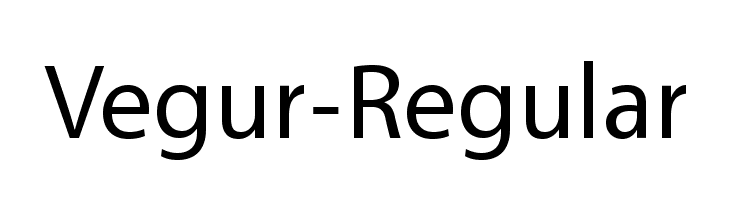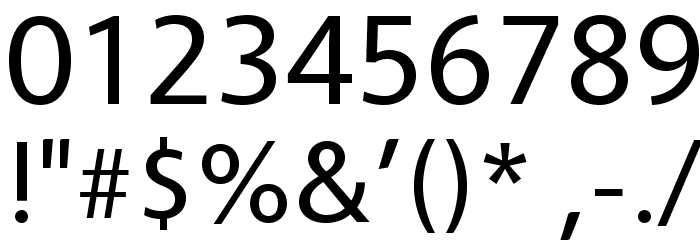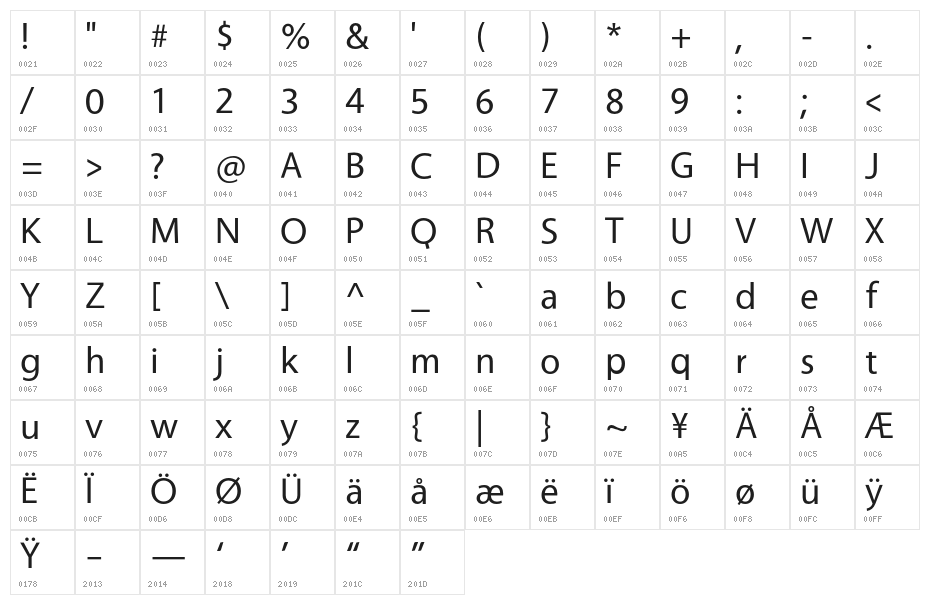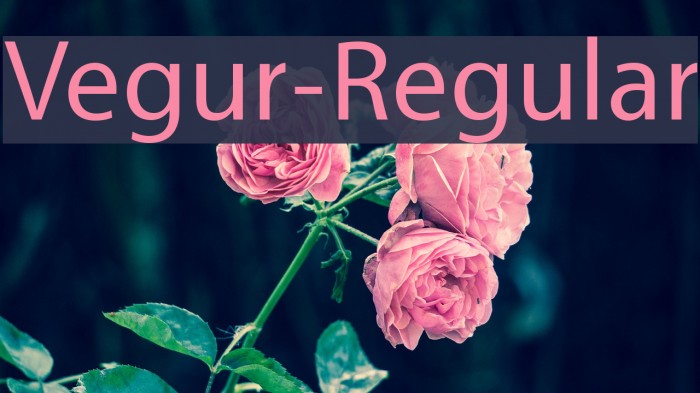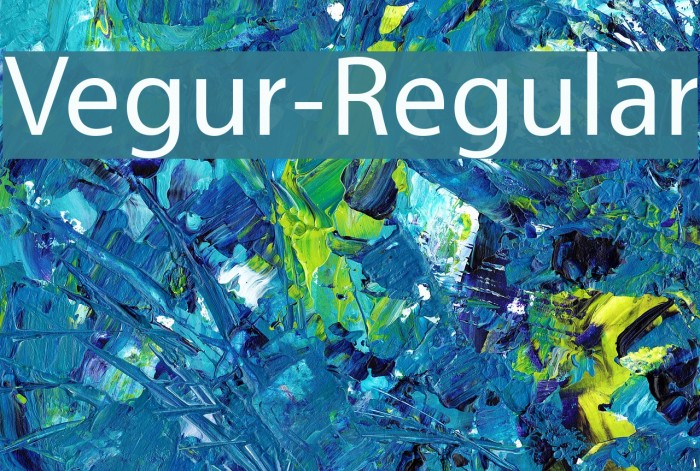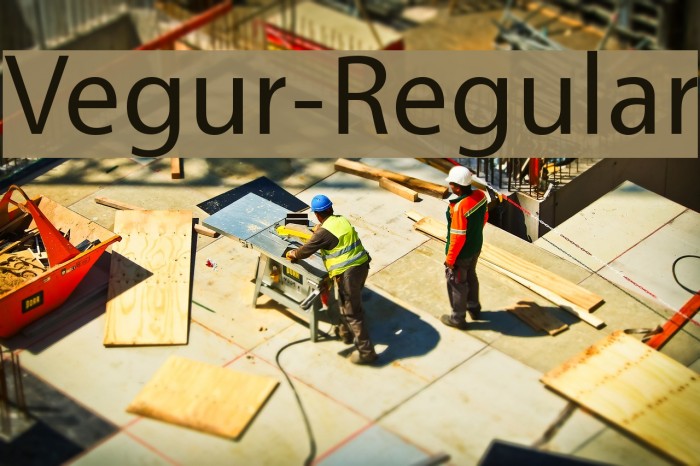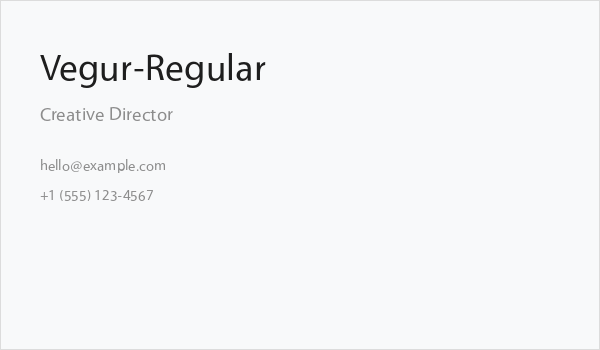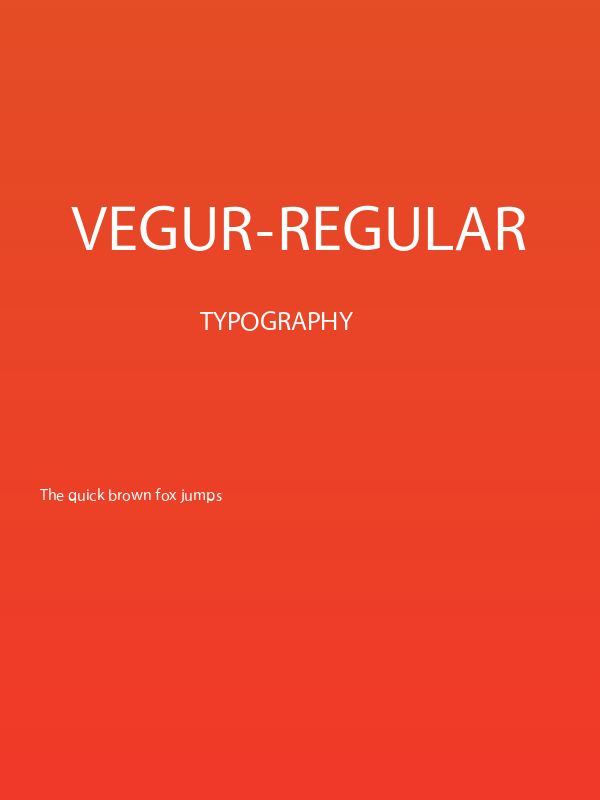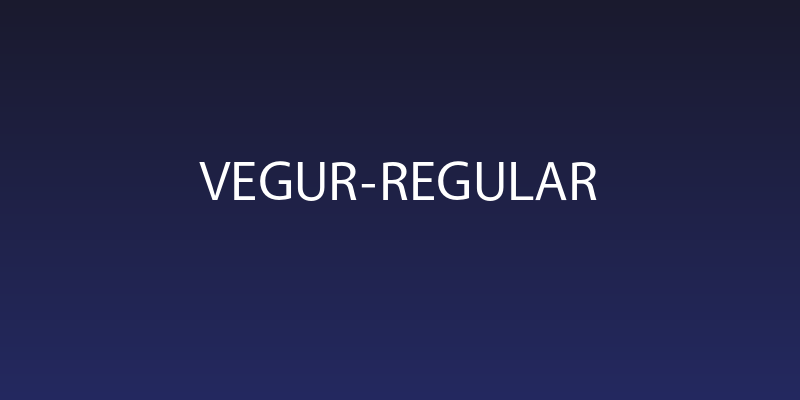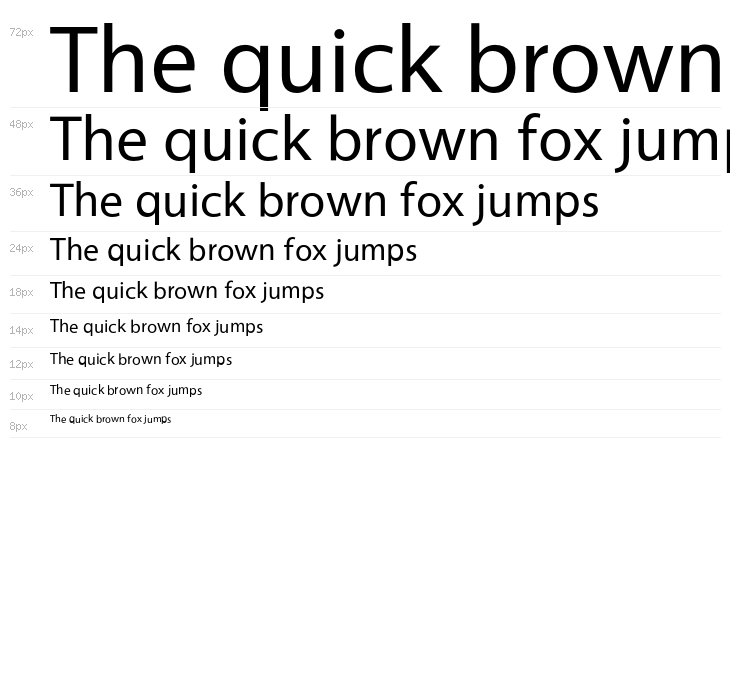
Vegur-Regular Font
Vegur-Regular Description
This font features a clean and modern sans-serif design, characterized by its simplicity and readability. The letters are well-proportioned with a uniform stroke width, providing a balanced and harmonious appearance. The uppercase and lowercase letters maintain a consistent style, with slightly rounded edges that soften the overall look. The numerals are clear and distinct, making them easily legible. Special characters are designed to complement the alphabet, ensuring a cohesive visual presentation. This font is versatile, suitable for a wide range of applications from digital to print media.